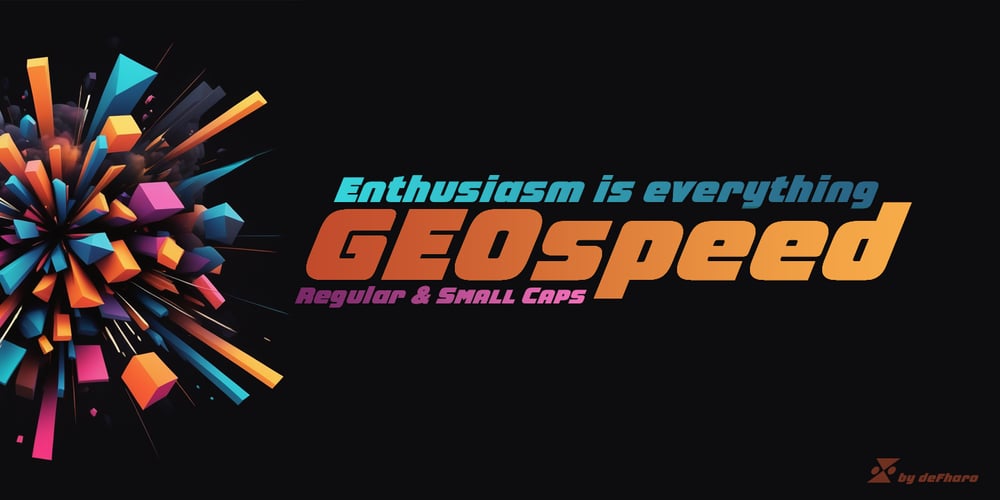
GEOspeed
GEOspeed font
GEOspeed Font Family was designed by Fernando Haro and published by deFharo. GEOspeed contains 2 styles and family package options. GEOspeed, a typeface that redefines design standards, this typeface goes beyond conventional, fusing robustness with elegance. Ideal for advertising use, posters or banners, GEOspeed is the very essence of modern visual expression.The typography includes 28 geometric icons accessible through the Open Type Functions: smcp and c2sc.Regular and Versalite: Two Styles, One Powerful Visual Identity:GEOspeed features two unique styles to meet all your creative needs. The Regular version provides solidity and clarity, while the Versalite adds a bold and distinctive touch. Together, these styles allow you to explore an unlimited range of visual expressions.22 degree inclination: Movement and modernity in each letter:With a 22-degree incline, GEOspeed is not just about movement, it also has an avant-garde feel. Each letter is an expression of dynamism, capturing attention and carrying your message into the future. Each letter is a statement of progression and avant-garde.Sans serif geometry.GEOspeed’s sans serif geometry sets a new standard for modernity. Each character is a geometric masterpiece, creating a contemporary look that highlights strength and elegance. Readability is guaranteed with meticulous metrics and kerning.Advanced OpenType features.GEOspeed’s advanced Open Type features give you precise control over the appearance of your text. From sophisticated ligatures to typographic variations, your creativity is the limit. Explore an infinite range of possibilities with GEOspeed’s numbers and letters set. From striking figures to expressive letter combinations, each design is unique. Includes dynamic fractions that maintain readability without sacrificing style. Every detail has been perfected to ensure a flawless typographic experience.